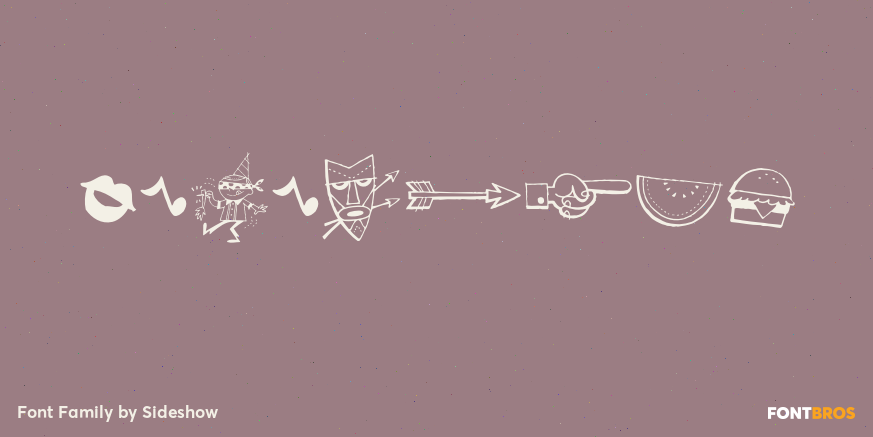
Derekbats
Dig this cats n\’ kittens … A whole heapin\’ helpin\’ of tasty art bits from Tiki retro artist Derek Yaniger! Use these spots to hop up your next birthday, cocktail, Hallowe\’en, or birthday invite … to name just a fewsville. This set has got it all,…